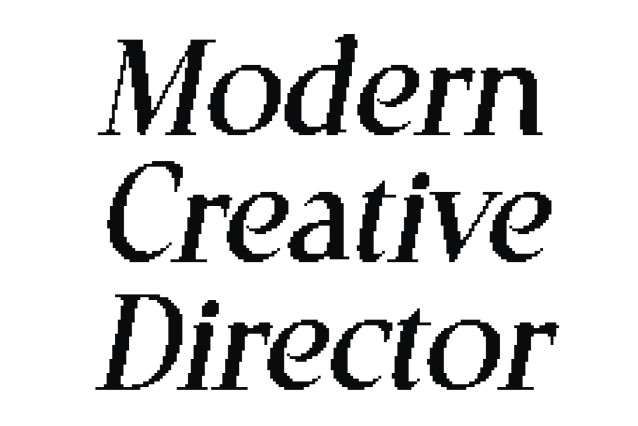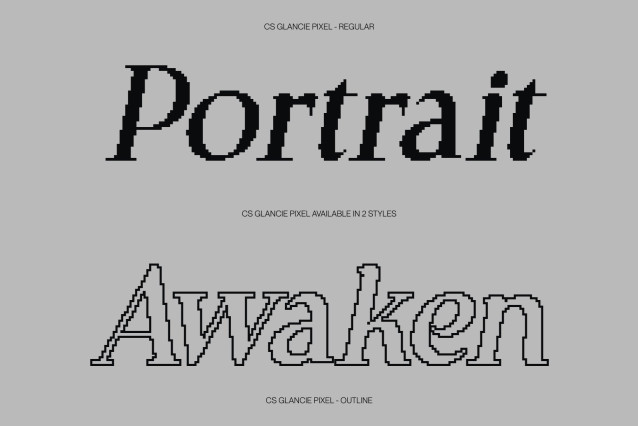
CS Glancie Pixel Font
CS Glancie Pixel Font This is a modern serif font that balances elegance, professionalism, and subtle pixel precision. Defined by bold, structured serifs and refined proportions, it conveys confidence, style, and clarity in every letter. Each curve and angle is thoughtfully crafted, producing a typeface that feels both timeless and contemporary perfect for brands seeking a sophisticated digital presence.
Elegant Pixel Details with Confident Tone
The strong serifs provide structure and authority, while smooth, pixel-refined forms add a sense of luxury and visual harmony. This careful balance of precision and artistry gives This font a distinct personality confident, polished, and subtly modern.
Perfect for Luxury, Editorial, and High-End Branding
Designed for luxury brands, editorial design, and premium visual identities, this font elevates typography to a statement of class. Use it in logos, packaging, fashion campaigns, or magazine headlines to ensure your designs radiate sophistication, clarity, and contemporary elegance.
A Typeface with Presence and Character
More than just a serif, this font embodies modern craftsmanship with a digital-friendly refinement. Its bold serifs, graceful rhythm, and subtle pixel detailing bring a human touch to professional design, making it ideal for those who value elegance, clarity, and confident visual communication.